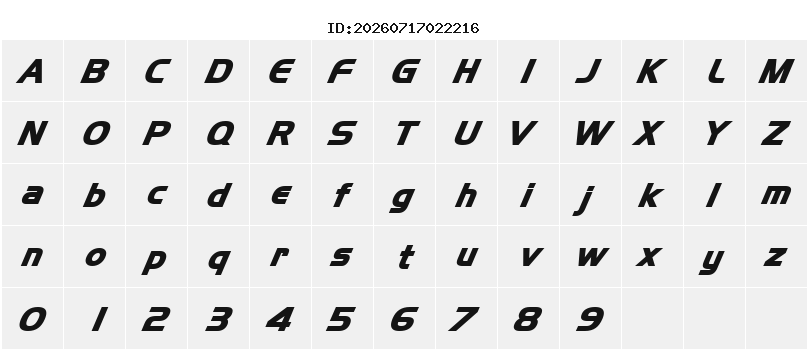
• Font Name: AF PEPSI
About AF PEPSI.ttf
AF PEPSI.ttf is a modern, elegant sans-serif font designed for ultimate readability and visual harmony. Perfect for branding, headlines, web design, and print materials.